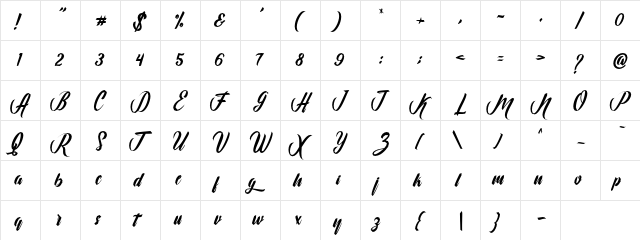
Cuttering Regular
Design Context for Cuttering Typeface
Cuttering is a composed and adaptable typeface that performs quietly and consistently across a wide range of design contexts.